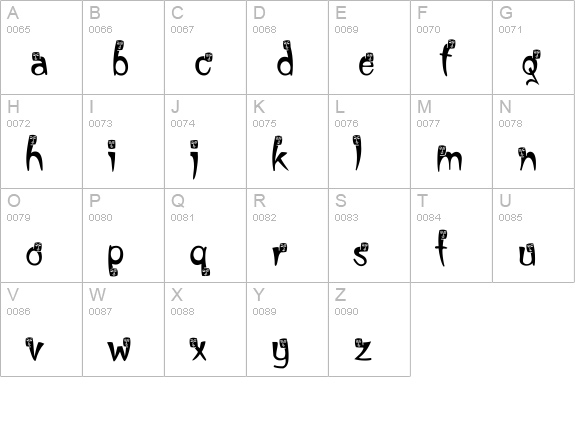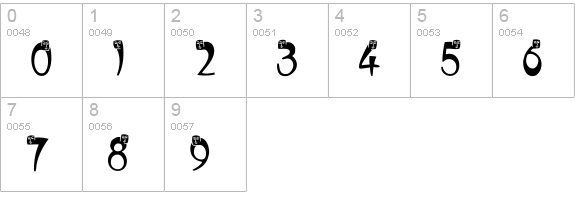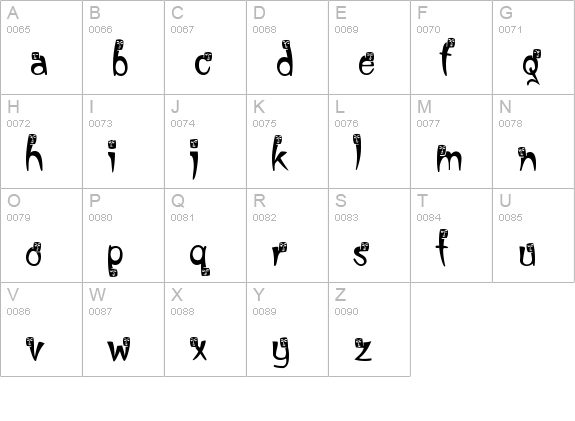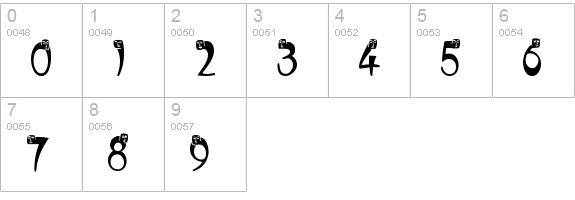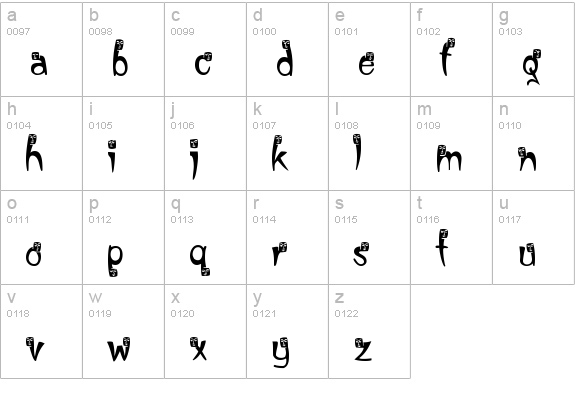
Shazi Font Details
Shazi font is a stunning and unique typeface that combines elegance with a touch of modernity. Its intricate details and graceful curves make it perfect for a wide range of design projects, from branding to editorial layouts. The flowing lines of Shazi font add a sense of sophistication and style to any text, making it a versatile choice for both print and digital applications. What sets Shazi font apart is not just its beauty, but also the fact that it is available for free download at FontsMarket.com. This means that you can easily access this exquisite font without any cost, allowing you to enhance your designs with its charm and flair. Whether you're working on a logo, packaging, or website, Shazi font will elevate your project to the next level with its timeless appeal and effortless elegance. Download Shazi font today and bring a touch of luxury to your design work.